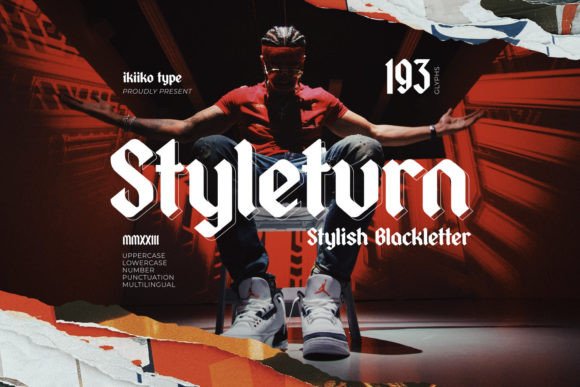
Attention all typography enthusiasts! Are you tired of scrolling through the same old boring fonts for your design projects? Look no further than Styleturn Font, the best font style for magazine layouts and so much more. Created by the talented ikiiko, this blackletter font family is the perfect blend of minimalist modernism and edgy urban culture.
The character of Styleturn Font exudes a hipster vibe with a hint of hip-hop and youthfulness, making it the perfect choice for designing posters, brand logos, sleeve covers, party flyers, and even adding a stylish text overlay to any background image. Its versatility knows no bounds!
This font's unique style is sure to captivate any audience and elevate your designs to new heights. Whether you're creating a sleek and modern magazine layout or a bold and eye-catching poster, Styleturn Font is the perfect choice for adding that extra touch of creativity and sophistication.